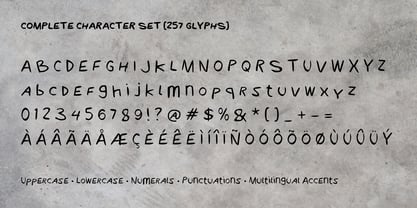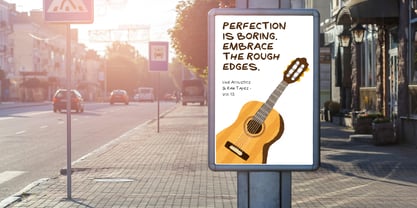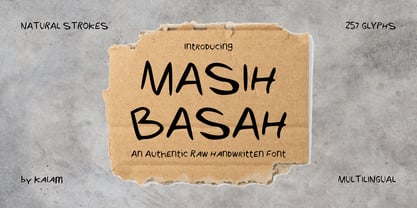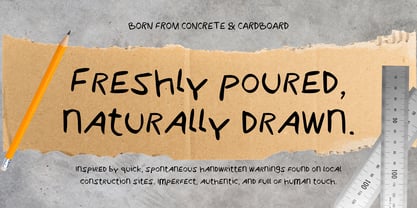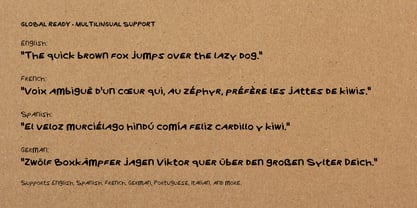
Masih Basah
by Kalam
The Masih Basah Font Family was designed by Wahyu Eka Prasetya, Moch Zamroni and published by Kalam. Masih Basah contains 2 styles and family package options. More about this family
Masih Basah is an authentic, raw handwritten display font inspired by everyday urban craftsmanship.
The idea was born on a construction site, sparked by a spontaneous warning scrawled across a piece of cardboard and laid over freshly poured concrete: "Masih Basah" (Still Wet). Captured directly from the quick, functional strokes of a builder's hand, this font embraces every imperfection, rough edge, and natural variation. It trades mechanical symmetry for genuine street-level character and spontaneous energy.